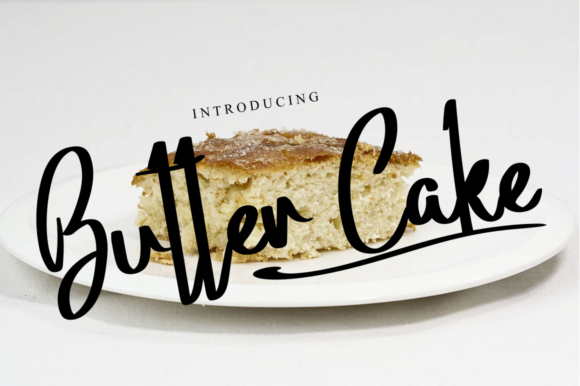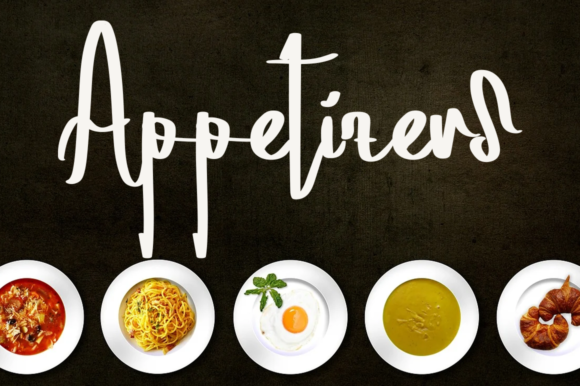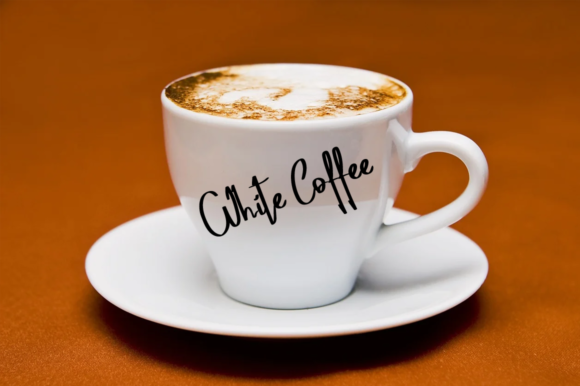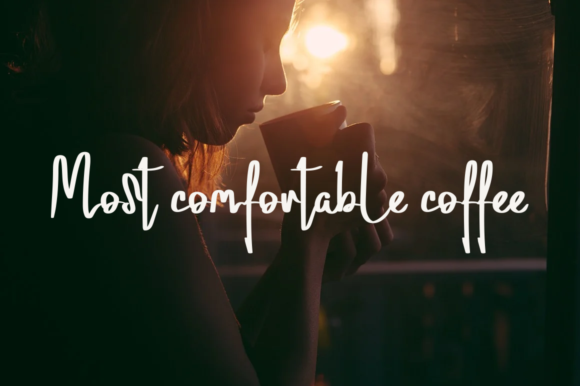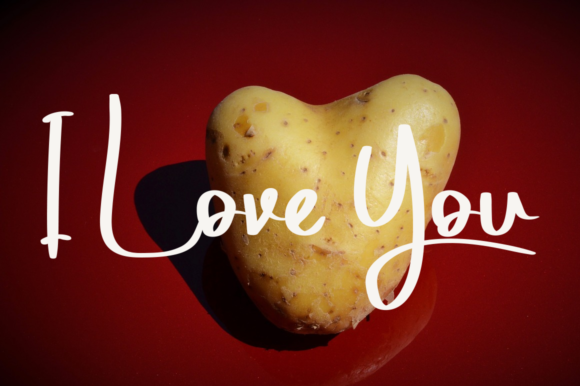
Butter Cake Font
About Butter Cake Font
Butter Cake is a dainty, thin and cursive handwritten font. This gentle font will look gorgeous on a variety of design ideas. It will add a joyful and romantic touch to each of your projects!